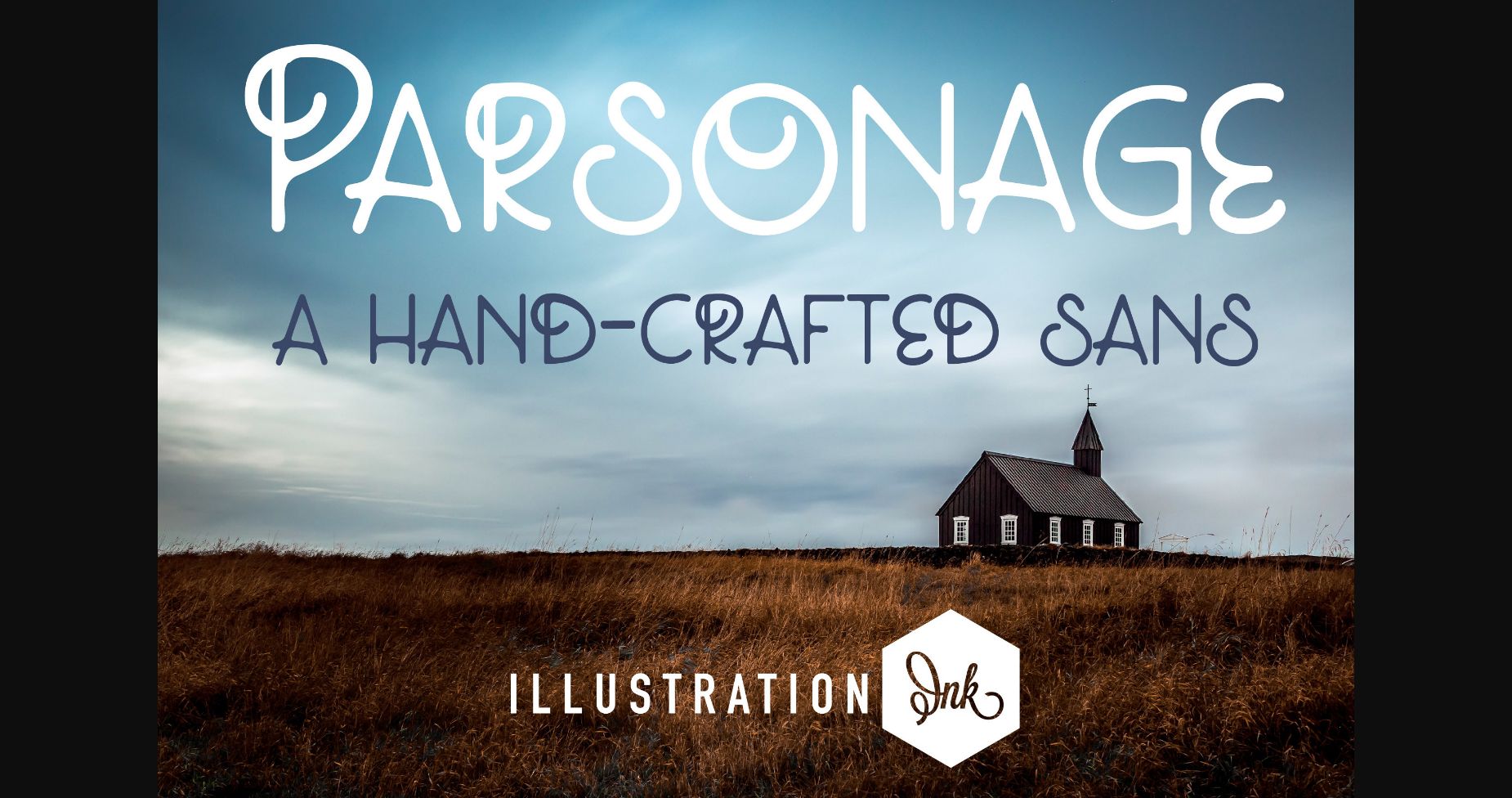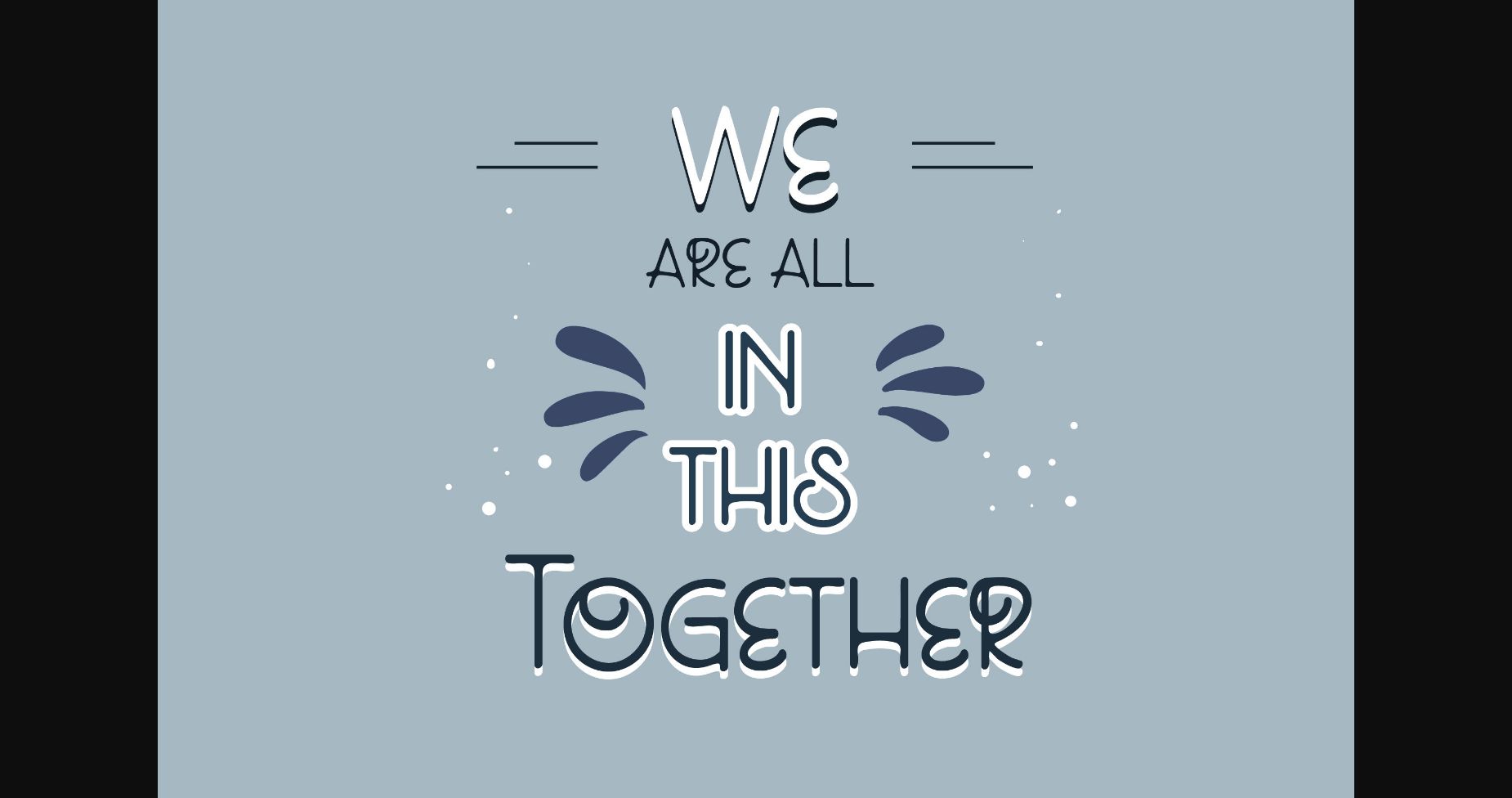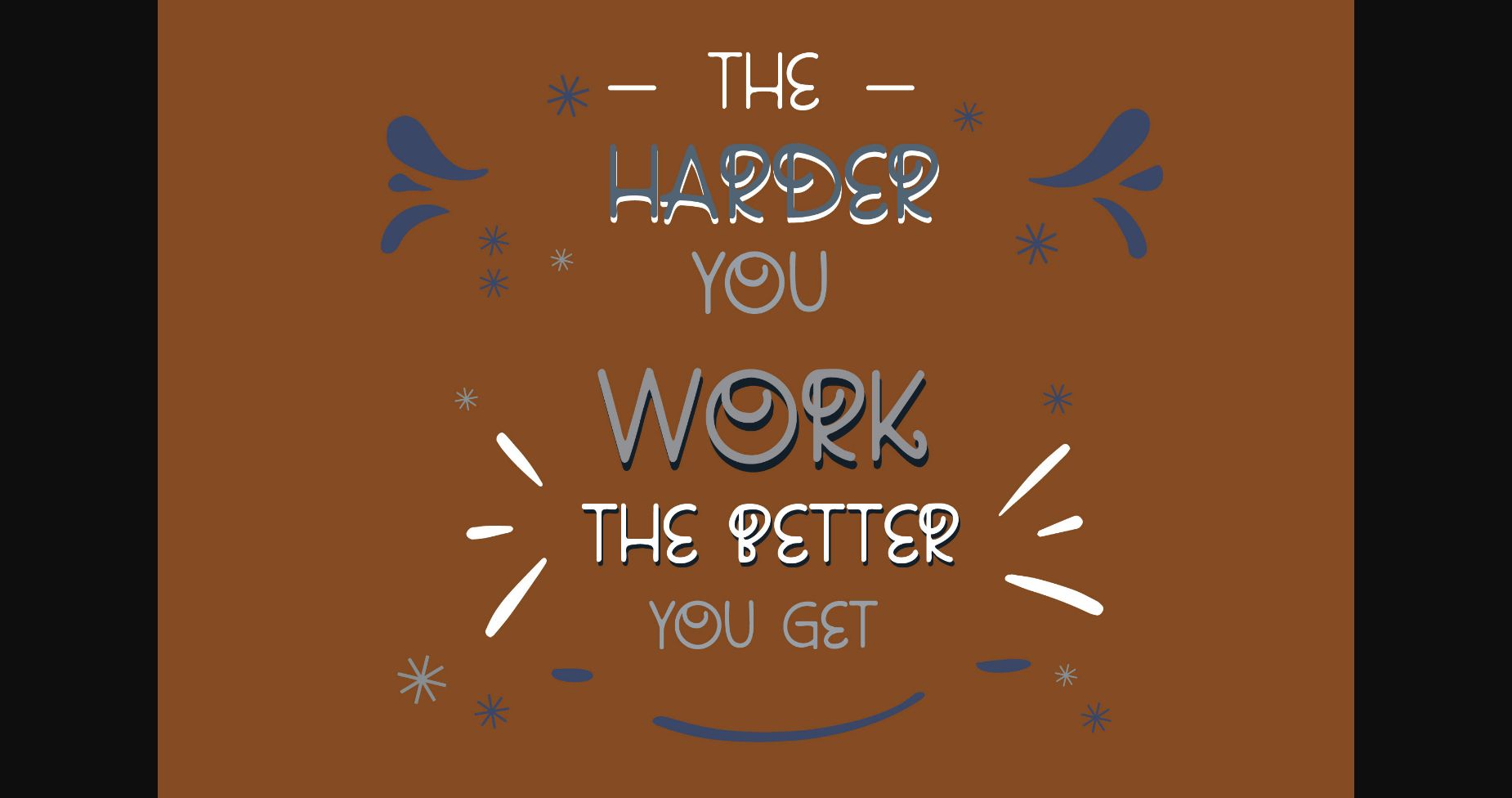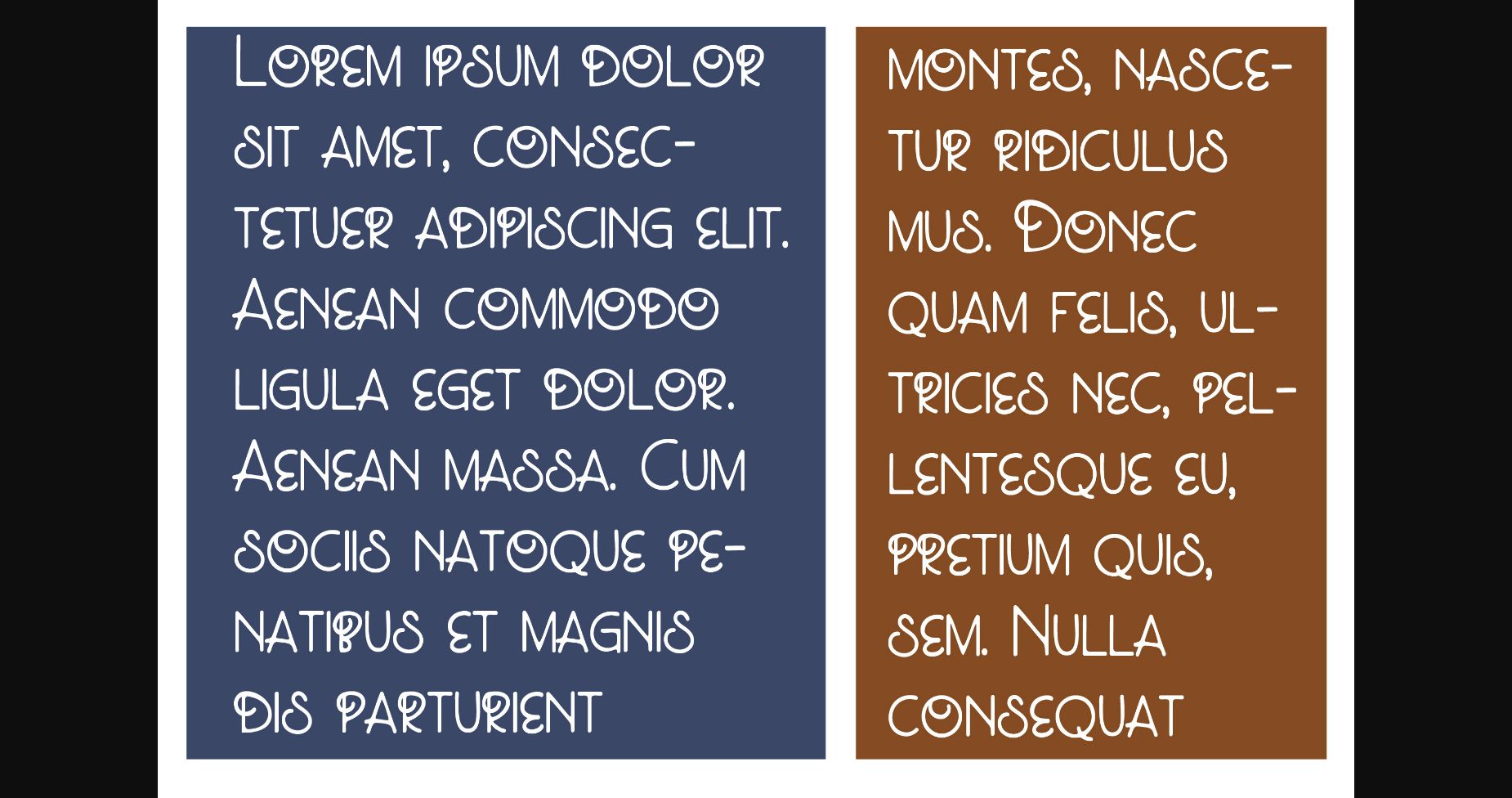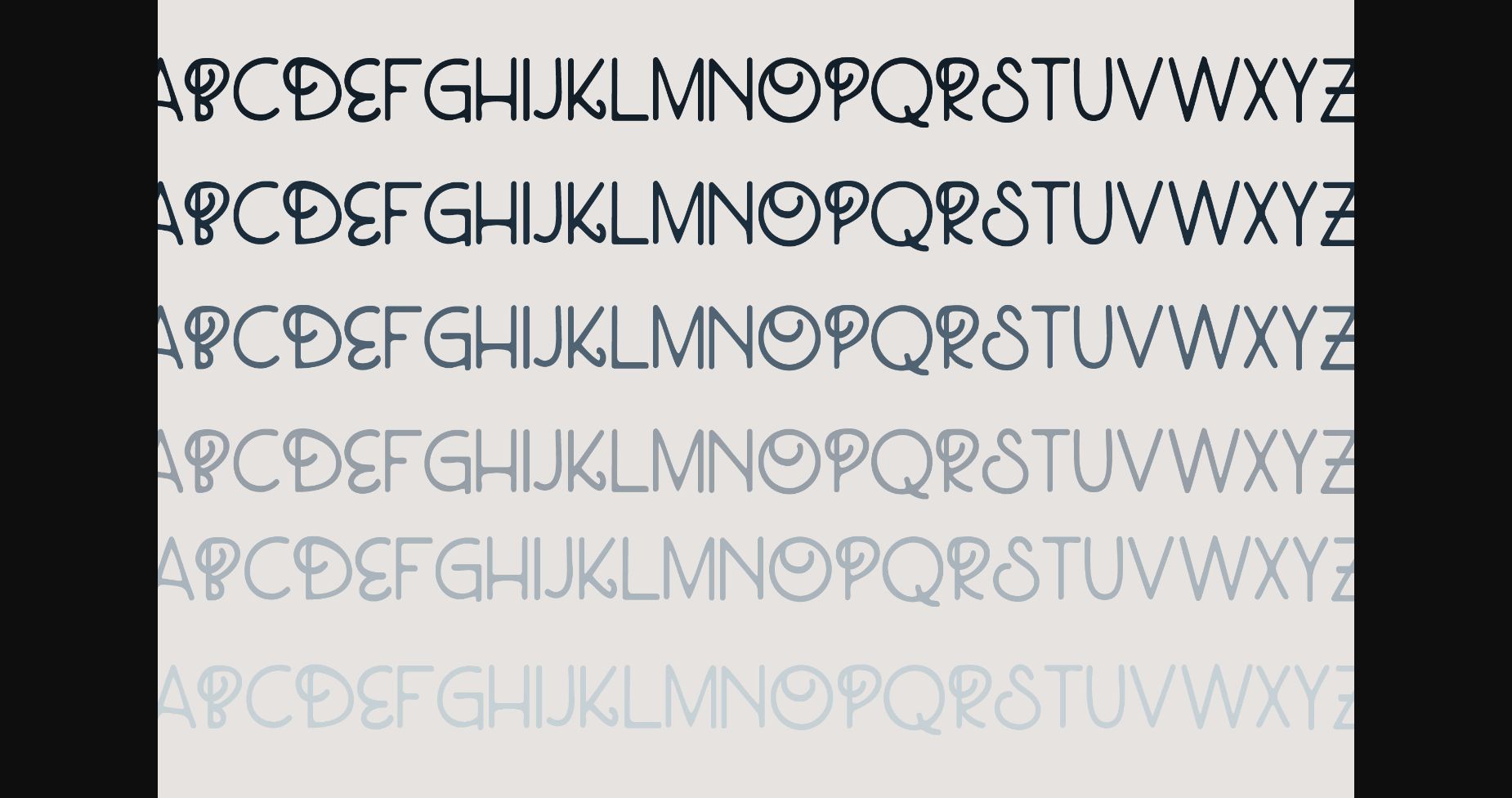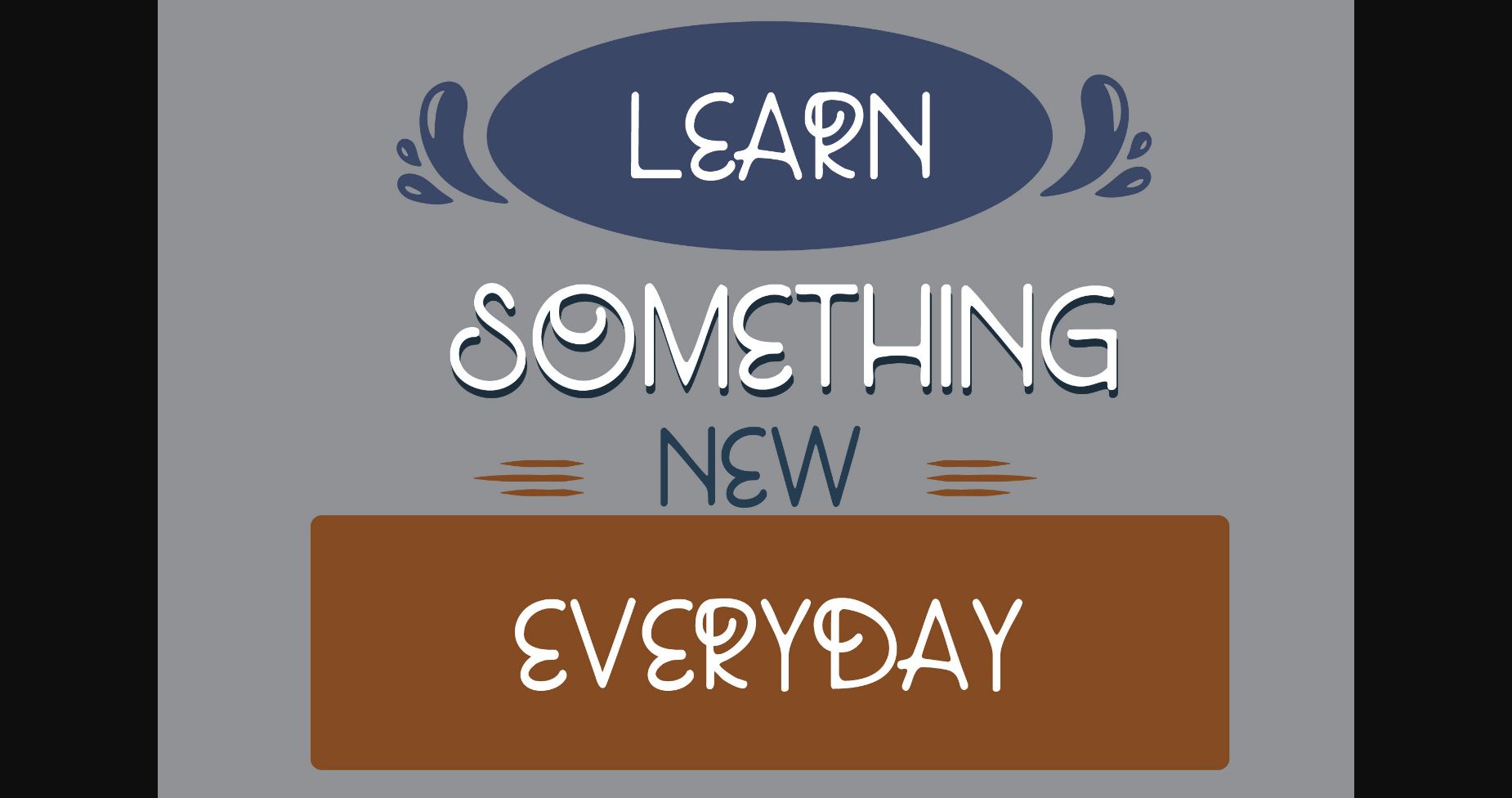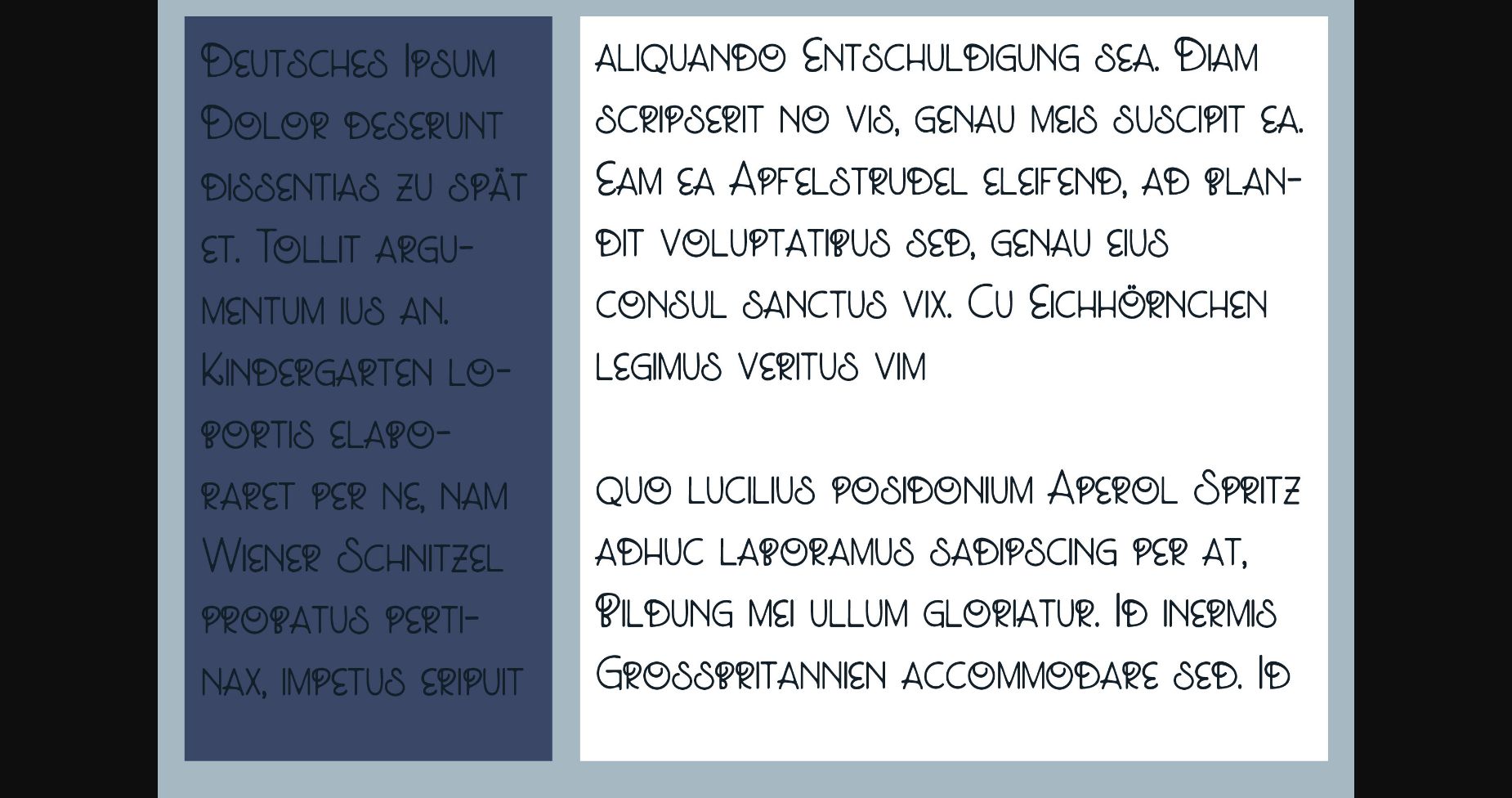
HomeSans Serif FontsParsonage Font Sans Serif Fonts Parsonage Font FacebookXPinterestWhatsApp 1 of 9 ... Parsonage Font Poster 2... Parsonage Font Poster 3... Parsonage Font Poster 4... Parsonage Font Poster 5... Parsonage Font Poster 6... Parsonage Font Poster 7... Parsonage Font Poster 8... Parsonage Font Poster 9... About Parsonage Font This hand-crafted sans serif, is squat with no descenders in the lowercase. This elegant font will add a touch of luxury and style to your branding and logo design projects. DOWNLOAD NOW People also explored Melyan Lover Font Sweetie Font Isabella Font Redhank Font Adost Font Westbrook Font Graduation Ceremony Font Wonderful Wostered Font Haredang Font 375 0 TagsParsonage Font Previous articleNew Orleans FontNext articleLuckywish Font LEAVE A REPLY Cancel reply Comment: Please enter your comment! Name:* Please enter your name here Email:* You have entered an incorrect email address! Please enter your email address here Website: Save my name, email, and website in this browser for the next time I comment. Personal Use Free Neuropol Personal Use Free Read more about this font Alphakind Personal Use Free Read more about this font Pinky Personal Use Free Read more about this font Ammanda Personal Use Free Read more about this font BLOG How to Install and Use Fonts on Windows, macOS, and Web Projects How to Install and Use Fonts on Windows, macOS, and Web Projects Fonts are a crucial part of design and branding. Whether you’re designing a... Free vs Paid Fonts: Why Investing in Premium Fonts Is Worth It Modern Sans-Serif Fonts That Brands Love in 2025 Top 7 Google Fonts Alternatives for Faster and Privacy-Friendly Web Design (2025)